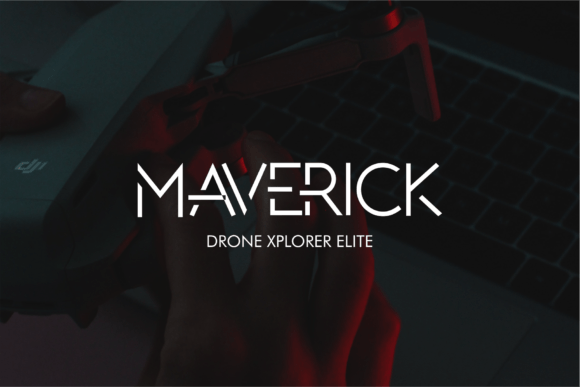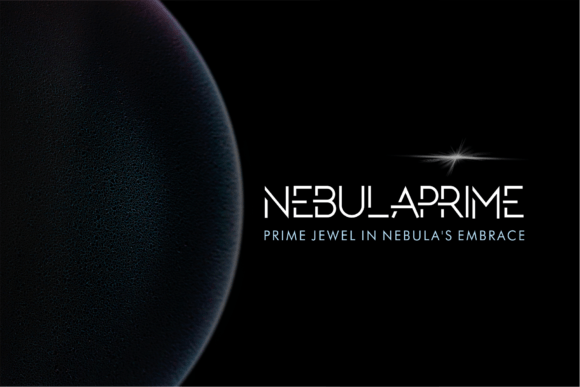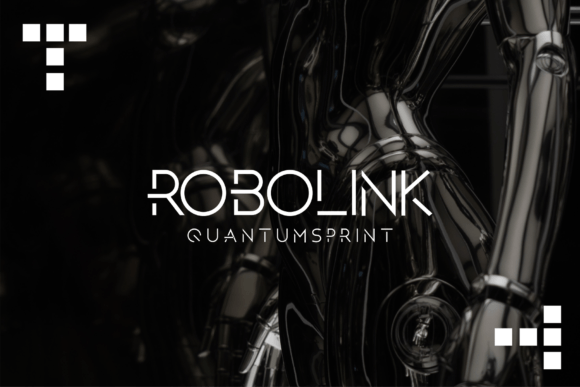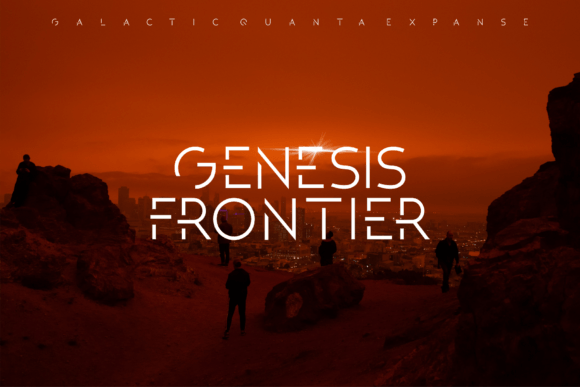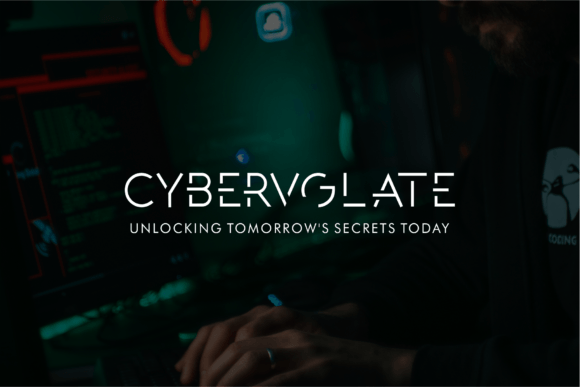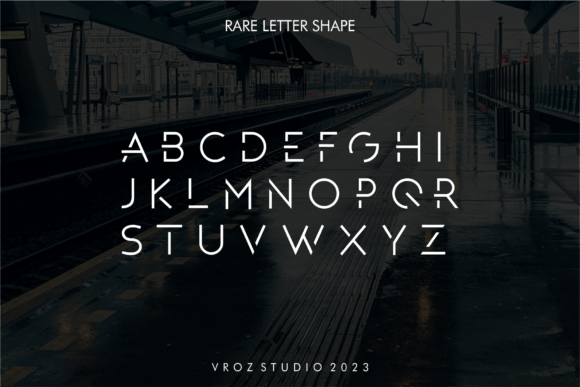
Introduction to Qubegenix Font
Have you ever stared at a blank canvas, waiting for inspiration to strike? For designers, this moment is all too familiar. But what if that spark of creativity was waiting for you in the perfect font? Welcome to Qubegenix Font, a futuristic headline font that’s about to revolutionize your creative projects.
With its sleek, geometric corners and high-quality design, Qubegenix Font is the ultimate design resource for any project. Whether you’re working on a fashion magazine, a logo for a new brand, or a blog header, this font is sure to make your work stand out. And the best part? It’s available for free download, making it an accessible resource for designers of all levels.
Key Features of Qubegenix Font
- High-quality design resource ideal for creative projects and professional use.
- Features a transparent background, allowing for easy customization and flexibility in design.
- High-resolution font, designed to maintain crisp and clear text at various sizes and resolutions, up to 300 DPI.
- Unique, modern aesthetic that sets it apart from other fonts, making it perfect for designers looking to add a touch of creativity to their work.
- Perfect for use in a wide range of creative projects, including logos, branding materials, and digital designs.
Honest Review: Qubegenix Font
I recently had the opportunity to work with the Qubegenix Font, and I must say it’s been a game-changer for my creative projects. The font is a fantastic design resource that offers a high-quality, modern look that’s perfect for a variety of applications.
- ✨ Transparent background allows for seamless integration with any design
- ⚠️ Limited character set, which may not be ideal for projects requiring a wide range of characters
- ⚠️ Some users may find the font’s modern aesthetic too trendy or overwhelming
Overall, I’m really impressed with the Qubegenix Font. While it may have some limitations, its strengths far outweigh its weaknesses, making it an excellent addition to any designer’s toolkit. With its high-quality design and free download, it’s definitely worth checking out for your next creative project.
Tips for Getting the Most Out of Qubegenix Font
To get the most out of Qubegenix Font, use it in conjunction with a transparent background to create a modern and creative look. This font is perfect for any design project, from branding materials to social media graphics.
Qubegenix Font is commonly used in creative projects, such as logos, branding materials, social media graphics, and presentations. It’s also a great design resource for free download, making it accessible to designers of all levels.